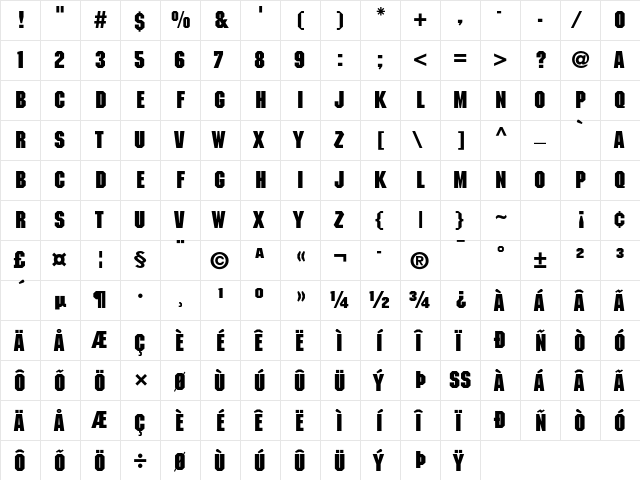
ITC Machine Std Bold
| Designer | Bonder & Carnase, Inc. |
Design Context for ITC Machine Std Typeface
ITC Machine Std offers clean, dependable letterforms without strong stylistic allegiance, making it a practical choice for designers who need flexibility. The heavy weight commands attention and anchors typographic hierarchies.